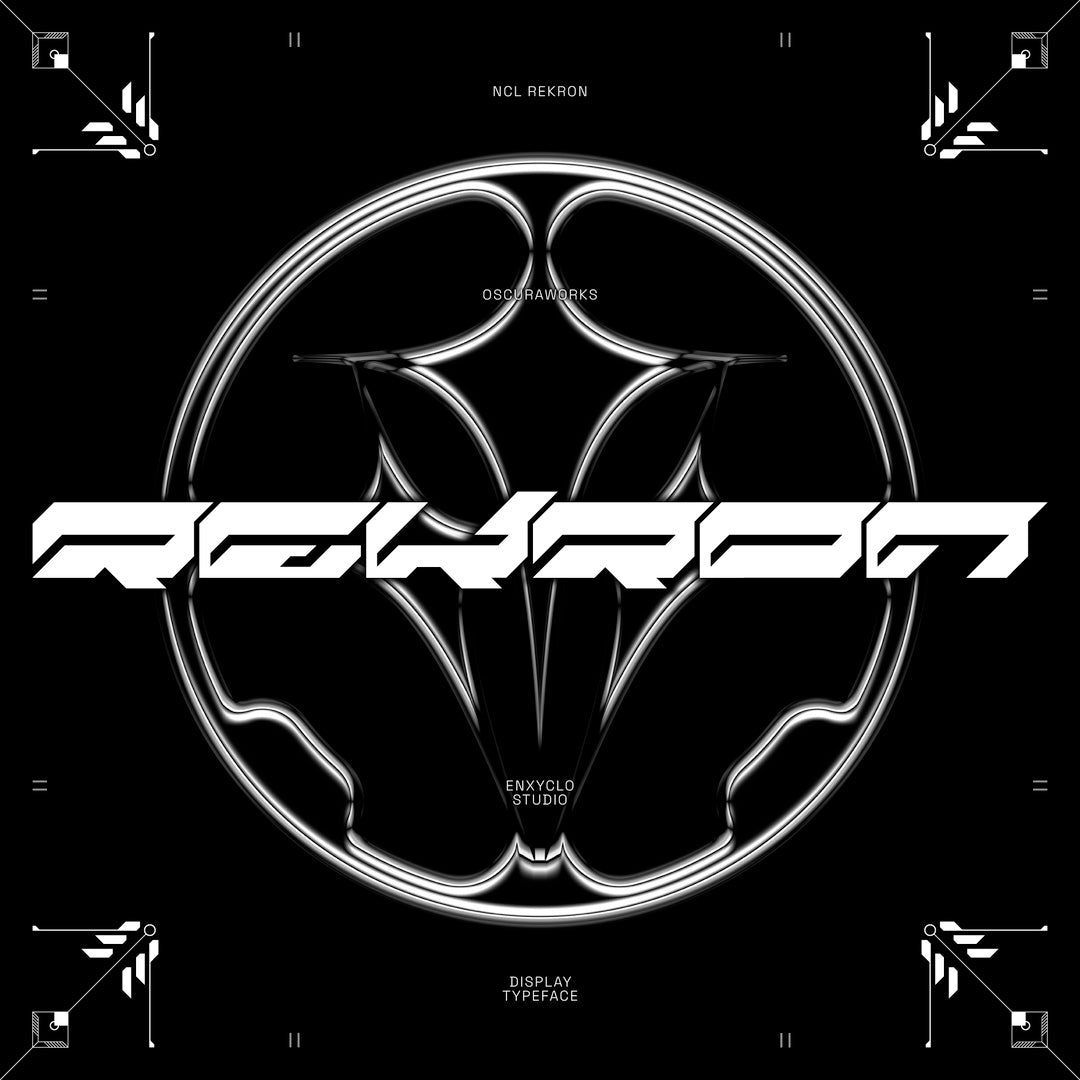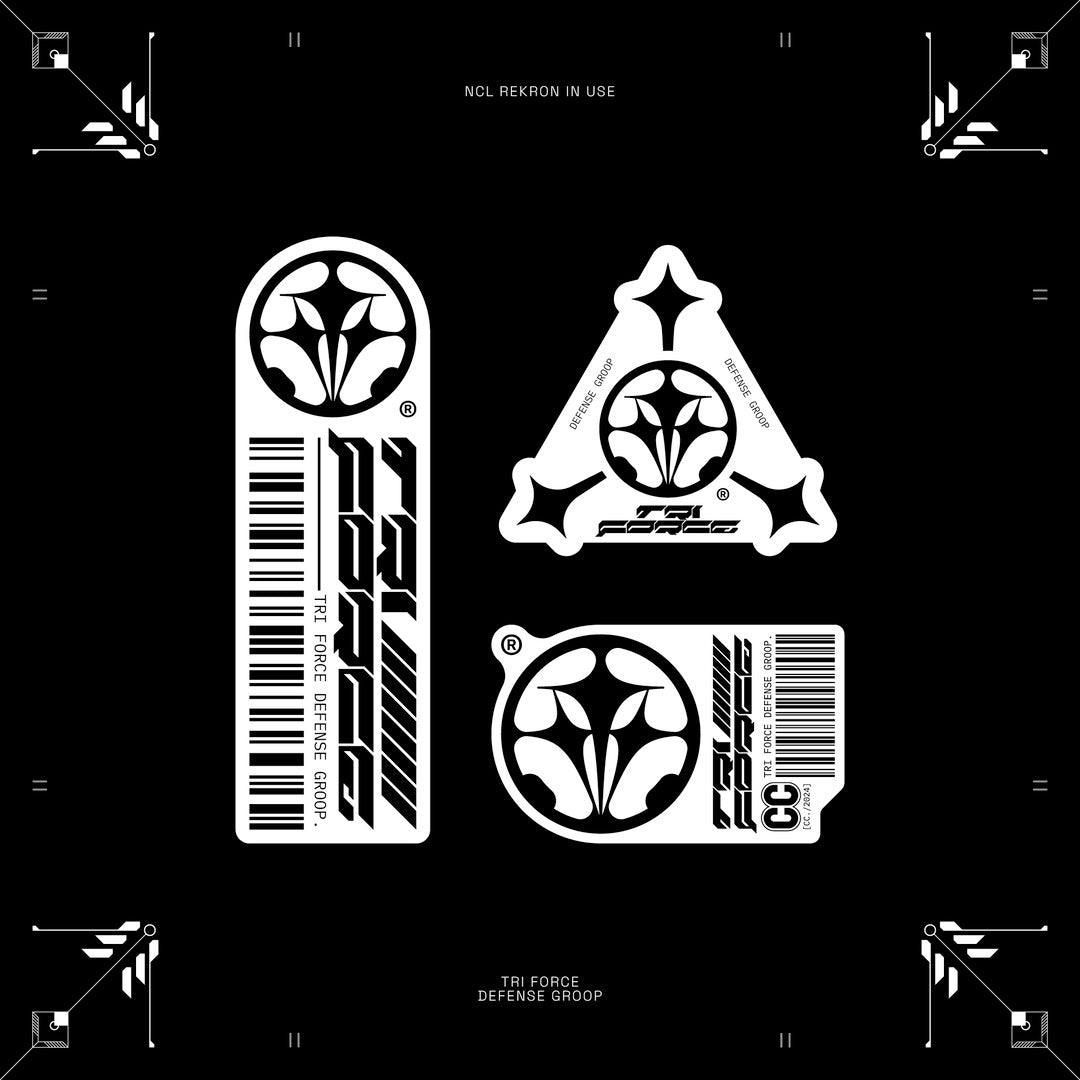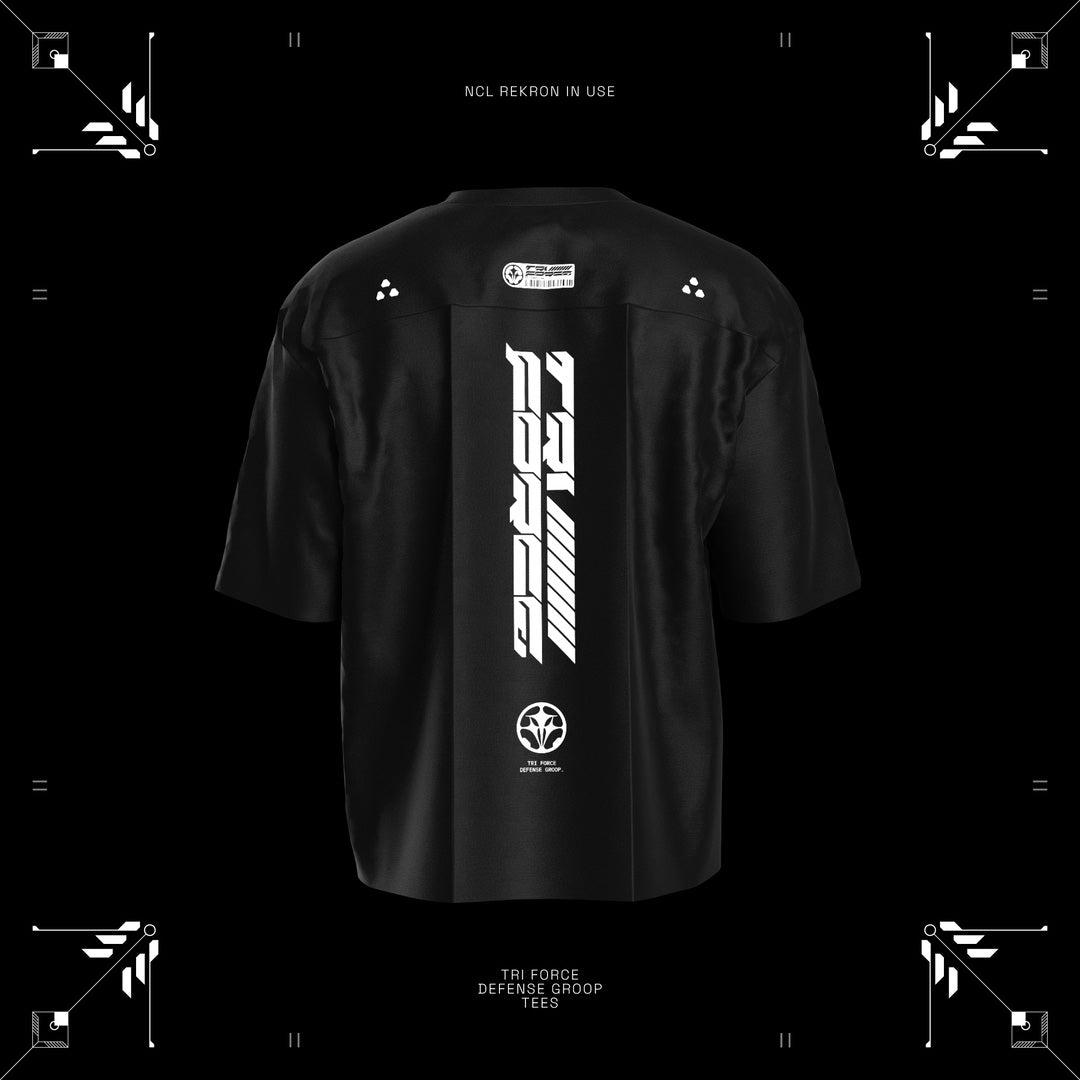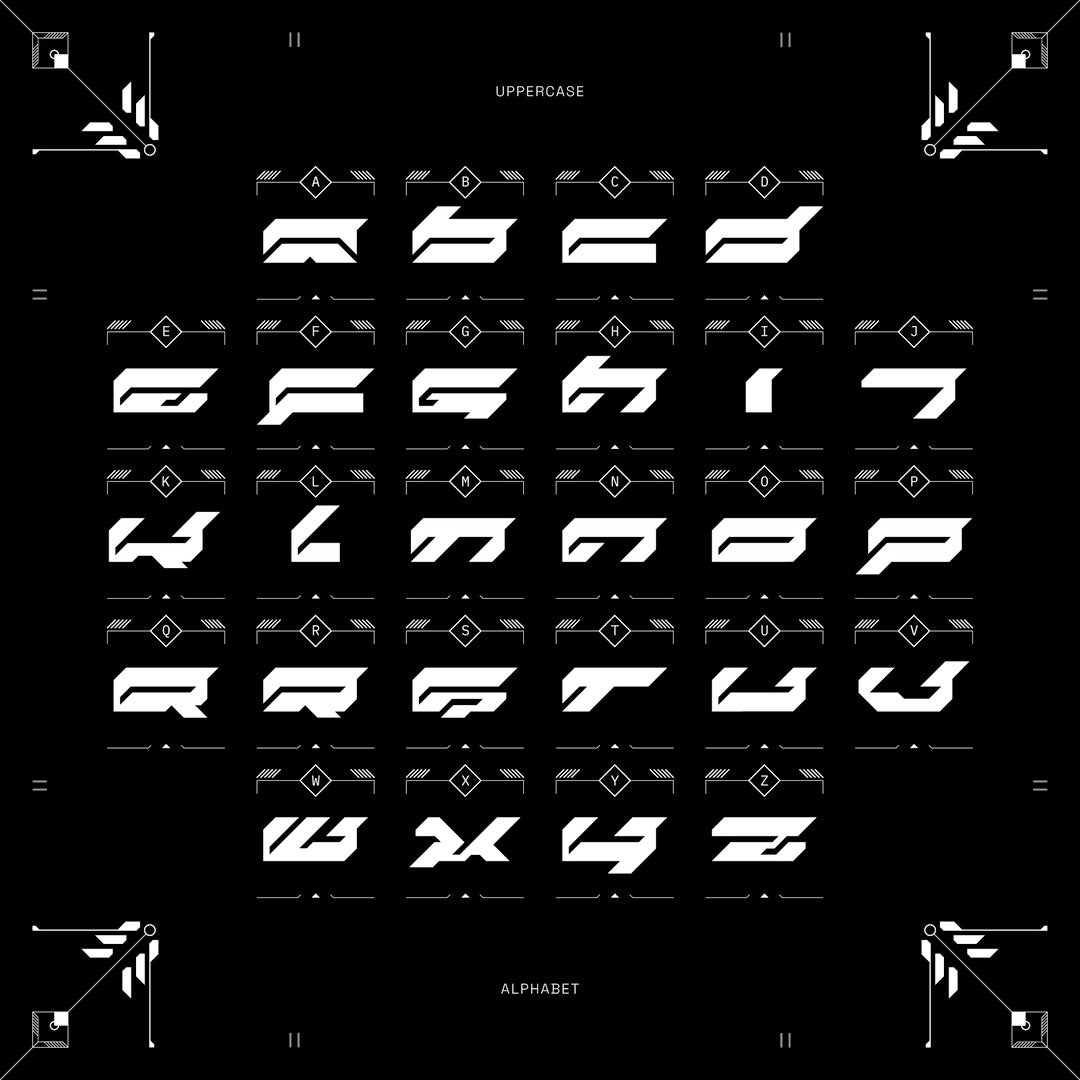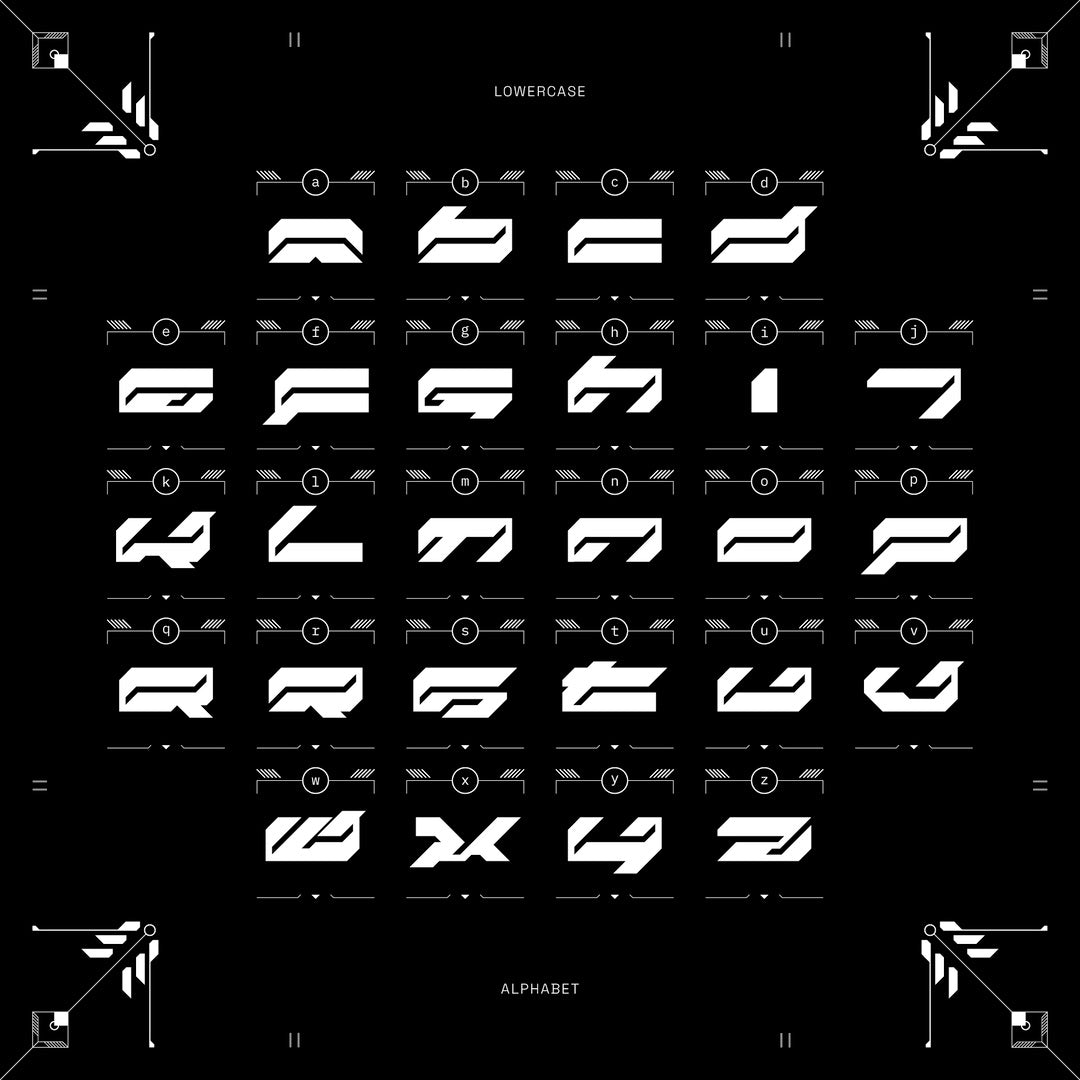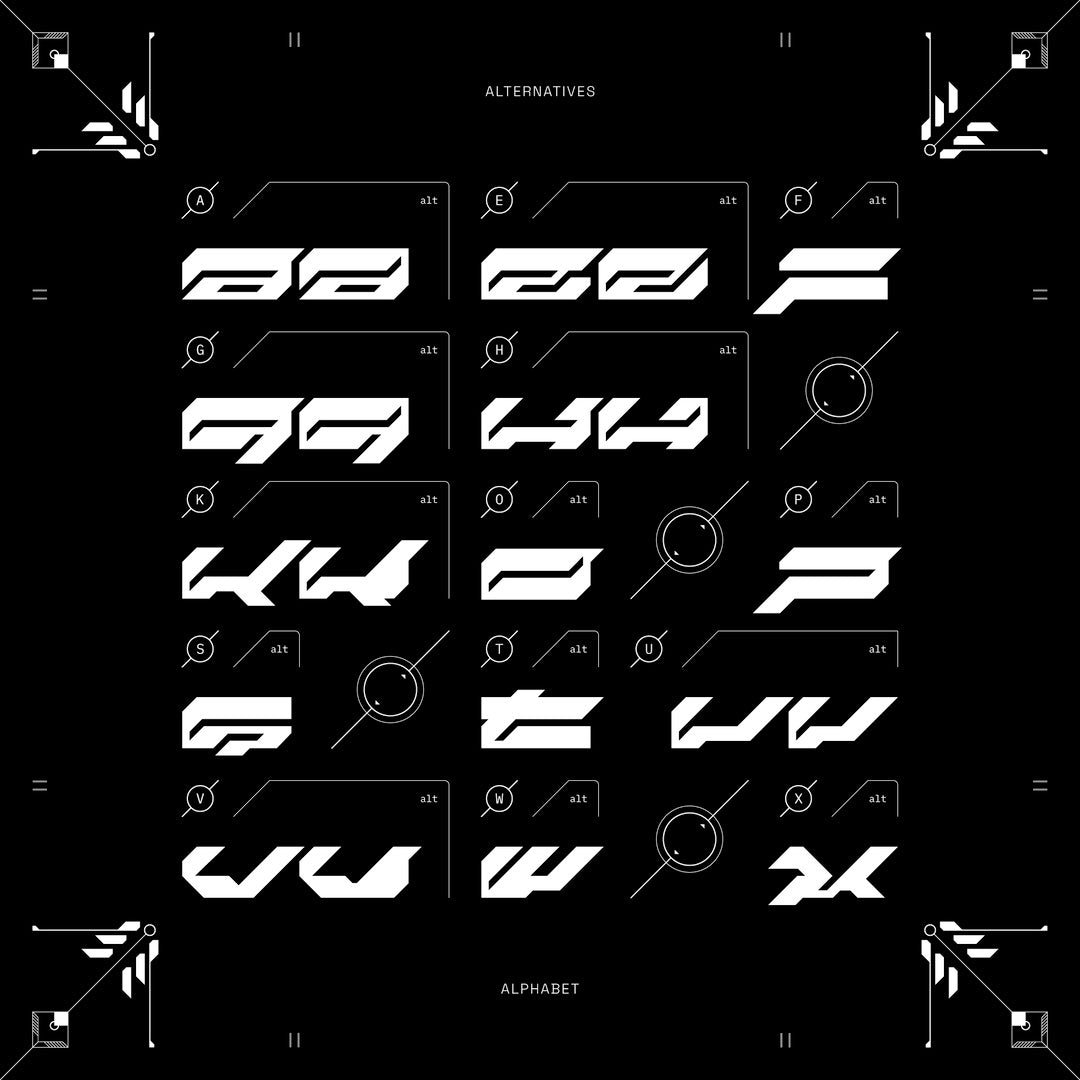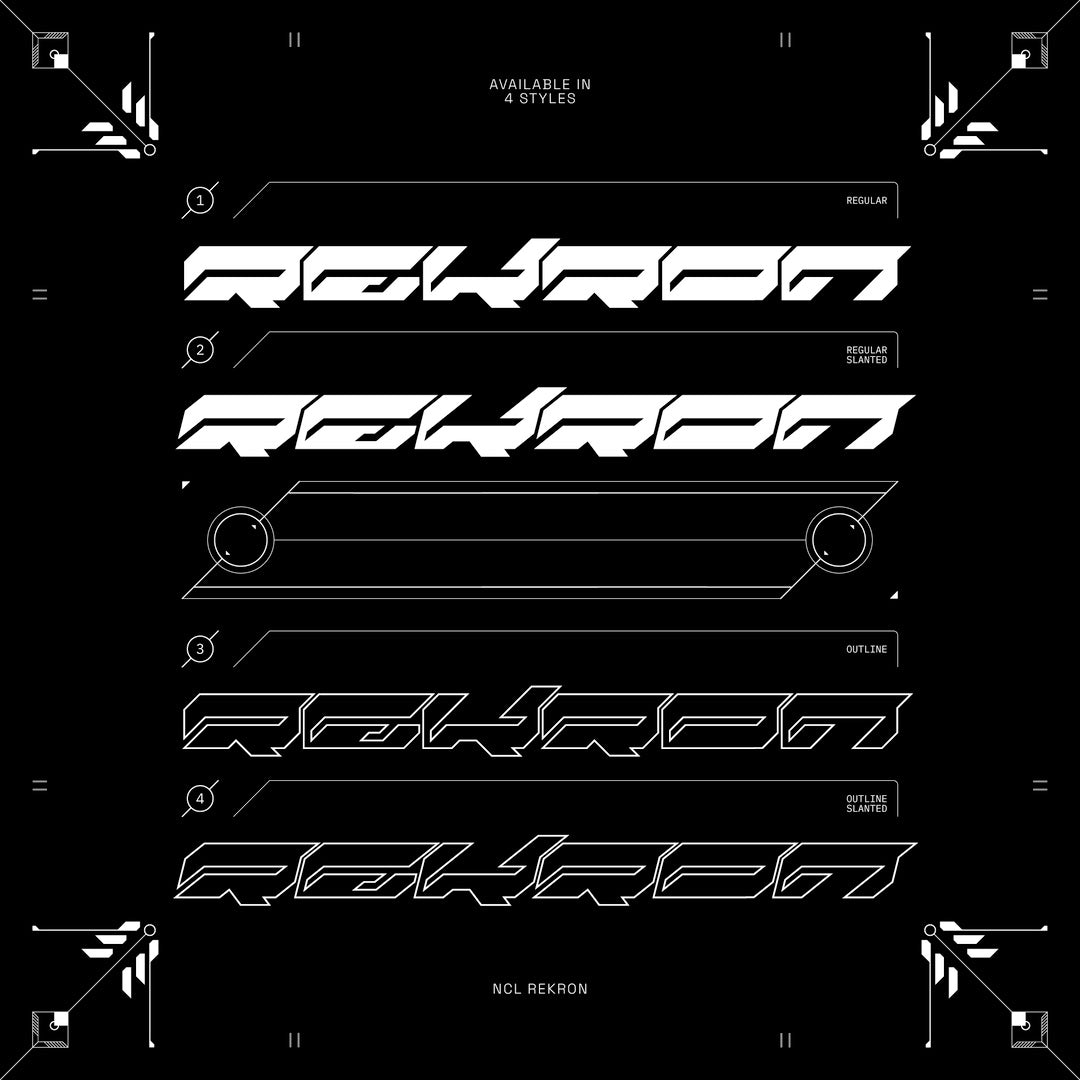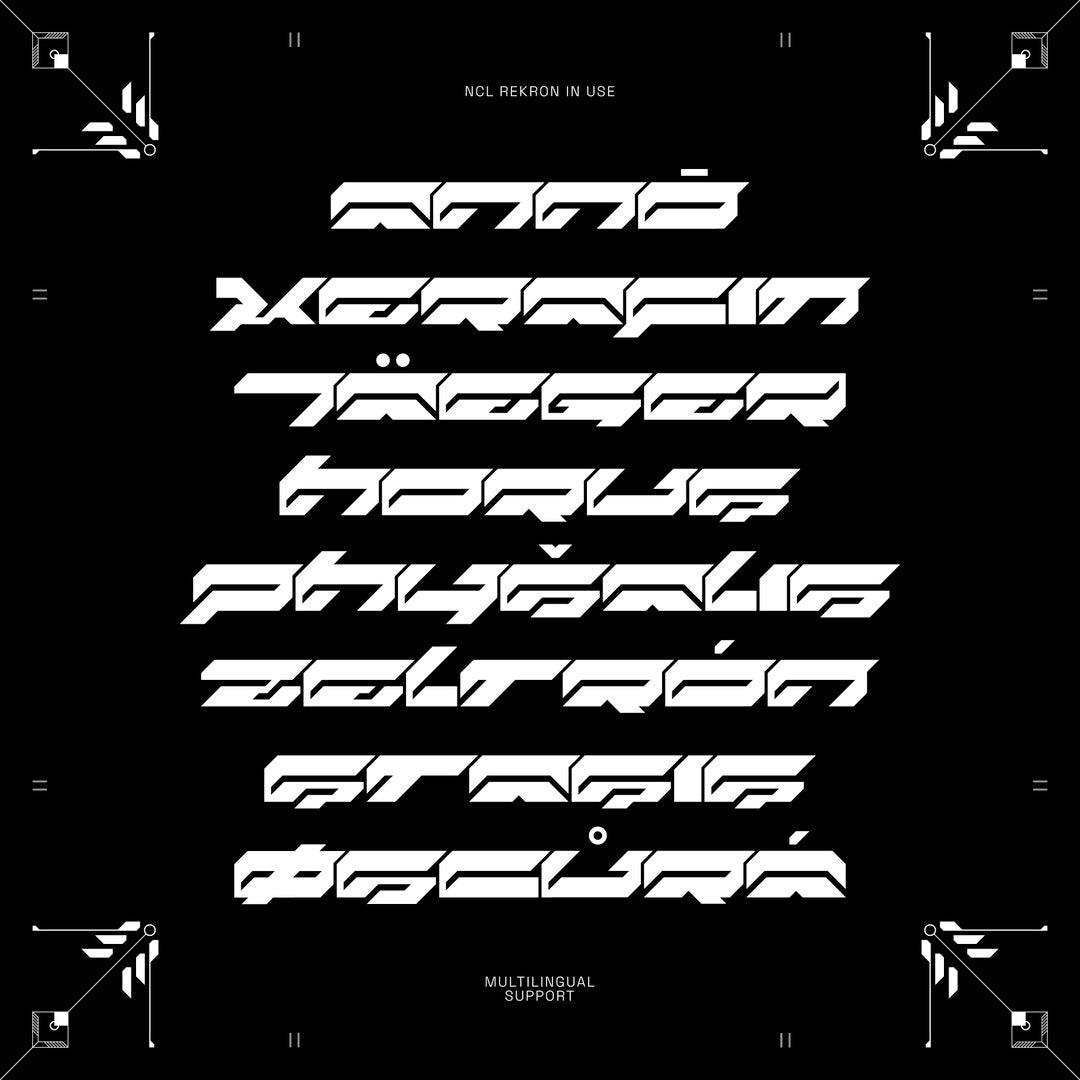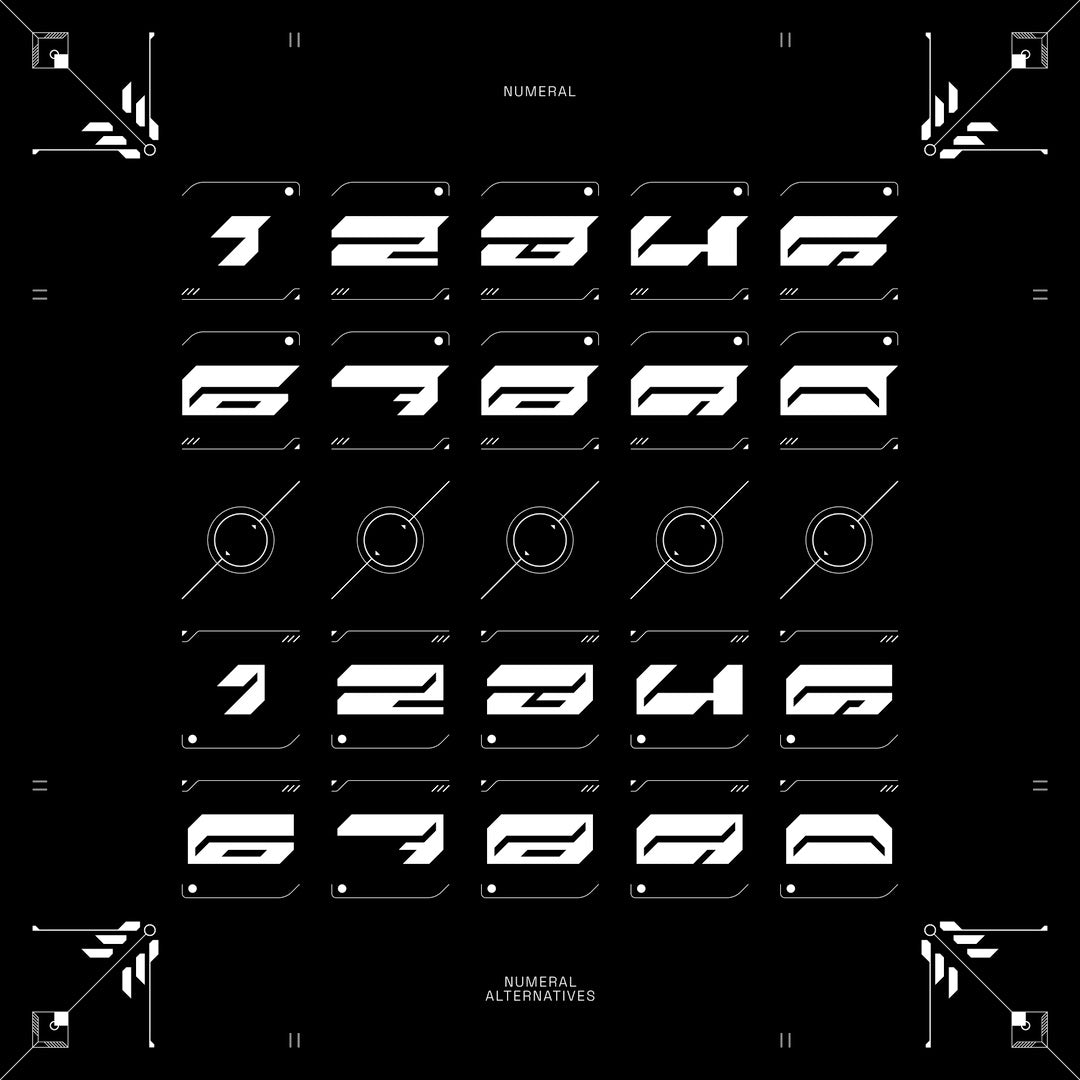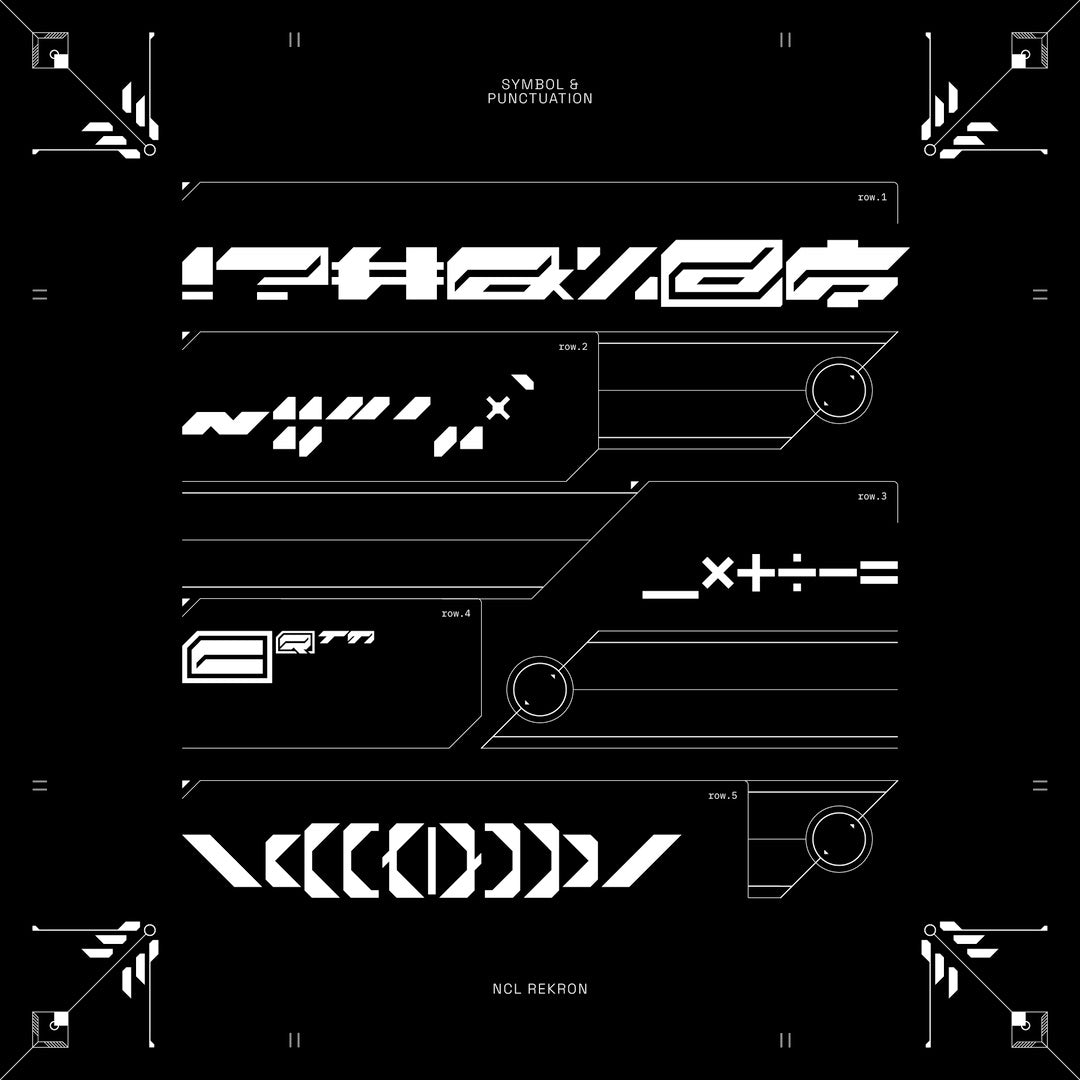
REKRON
NCL REKRON - Y2K FUTURISTIC TECH FONT is a typeface inspired by industrial and mecha-robotics themes. It includes four styles (Regular, Slanted, Outline, Outline Slanted), with 356 glyphs for each style and a total of 1424 glyphs. The font supports uppercase, lowercase, alternates, numerals, punctuation, and symbols, and is available in True Type Font (TTF), Open Type Font (OTF), and Web
Ideal for futuristic and cyberpunk design projects. Perfect for album artwork, posters, headlines, and logotypes, ensuring a bold industrial edge that captures attention and enhances visual impact.